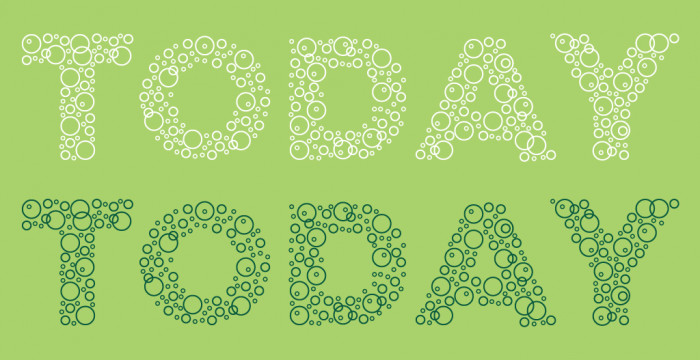
'Tomorrow' never really materialises. Inspired by beate's db Soda and the letterforms of Nexa.
Surprising font, a new turn of your typographic screwdriver, mixing brilliantly and sparkling those two excellent references (db soda & Nexa). Like many of us sais, the Future is now. Good luck, compañero.
You did it! That beate font didn't leave my mind at the time, also because it wasn't available so I could make Cyrillic letters for it. I can literally feel the bubbles sizzle and pop. So cool!
You've really come full circle on this one, four.
Really running circles around the competition.
It's similarity to db Soda rings true.
I like how the circles overlap in a roundabout way.
I like this even though you didn't include my favourite character, "&."  Favourite character here is the period, for the stray bubble.
Nice and bubbly. I could imagine this font used for fizzy drinks adverts. 10/10
I just love it. I think this was my favorite from the competition.